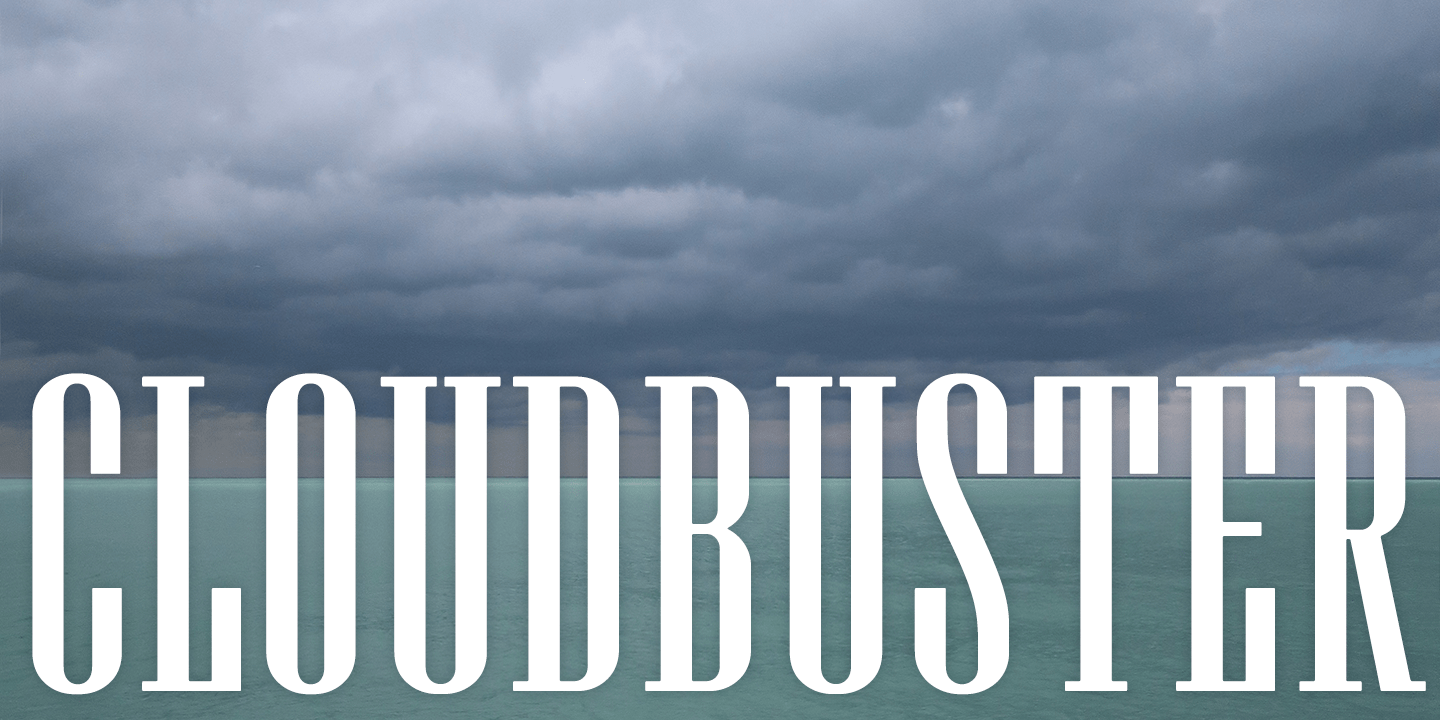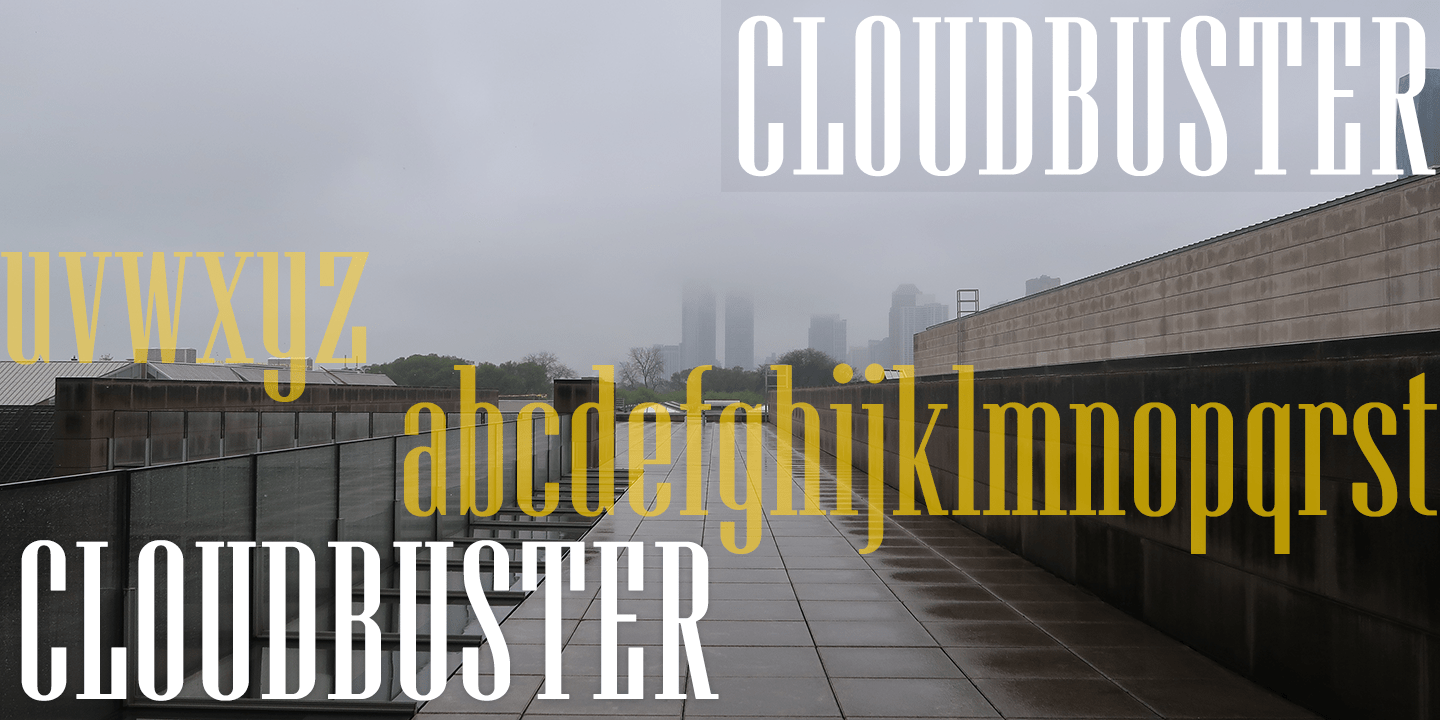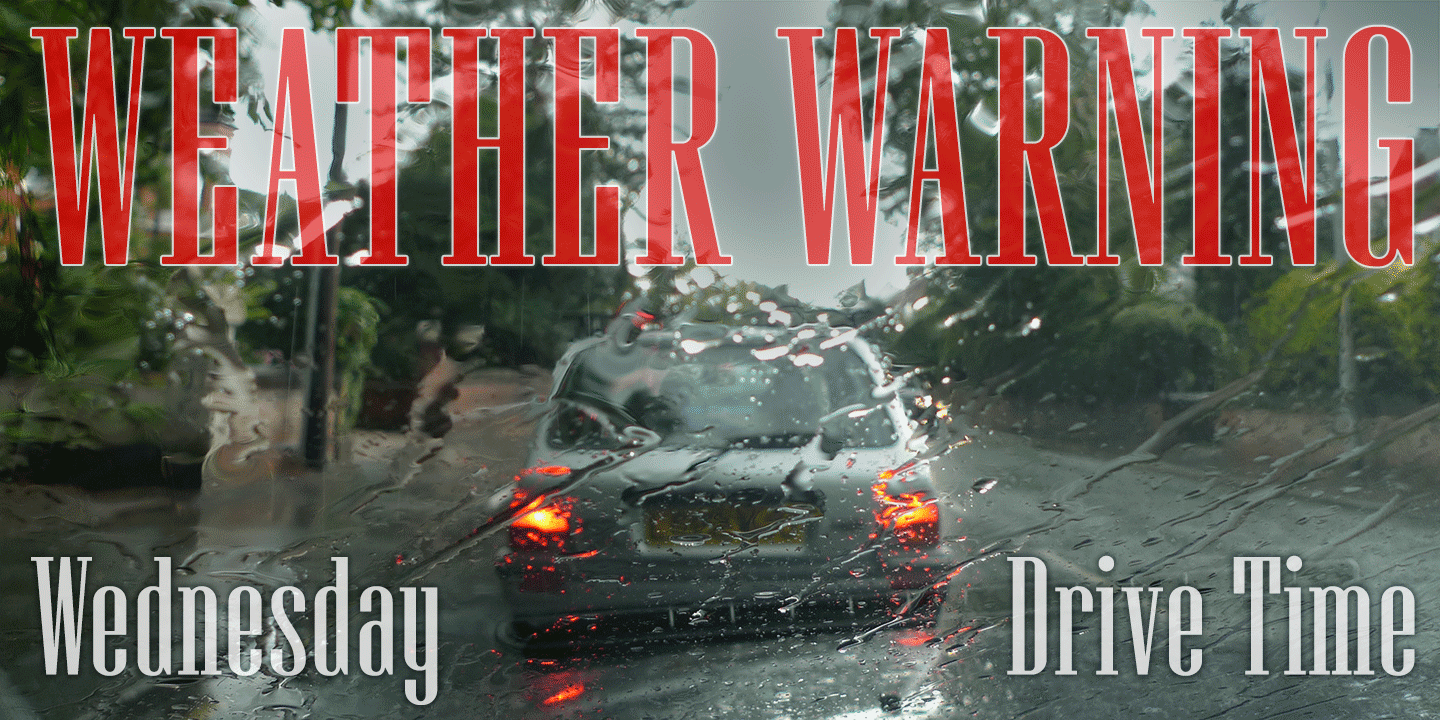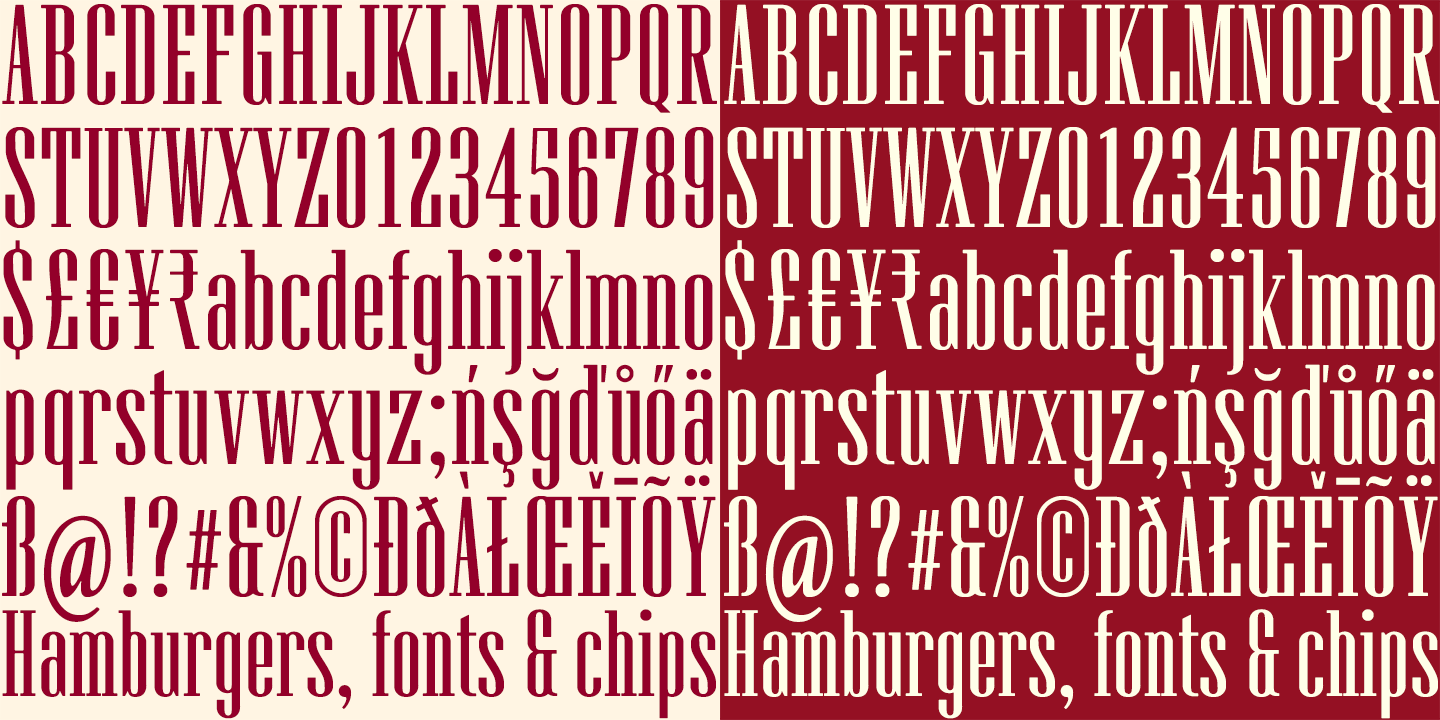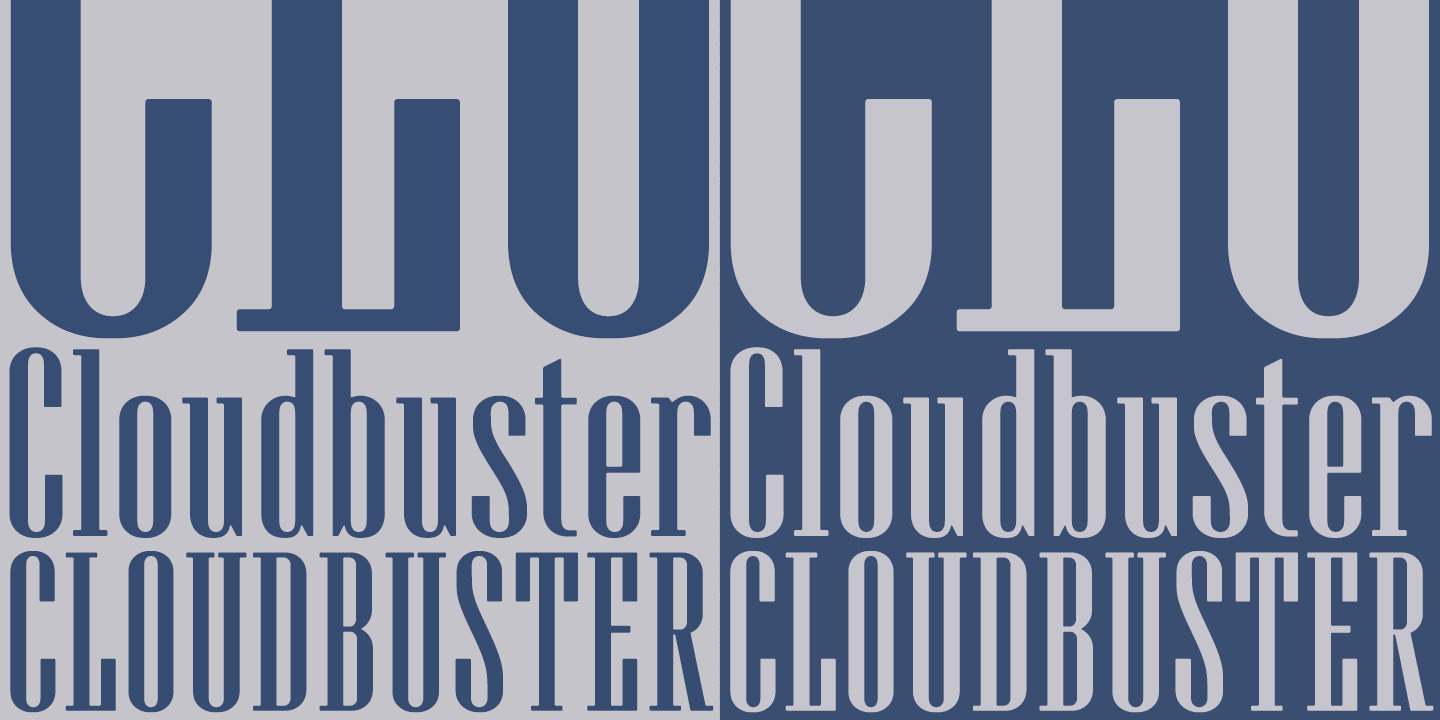
Cloudbuster
Cloudbuster is K-Type's take on the mid twentieth century style of extra condensed slabs/moderns inspired by Imre Reiner's Corvinus Skyline of 1934.
Unusually, Cloudbuster has a printed-look softness, courtesy of very slightly rounded corners throughout, so it looks a little less harsh than similar typefaces. The font is an imposing display face with elegant, unfussy letterforms and a generous x-height.